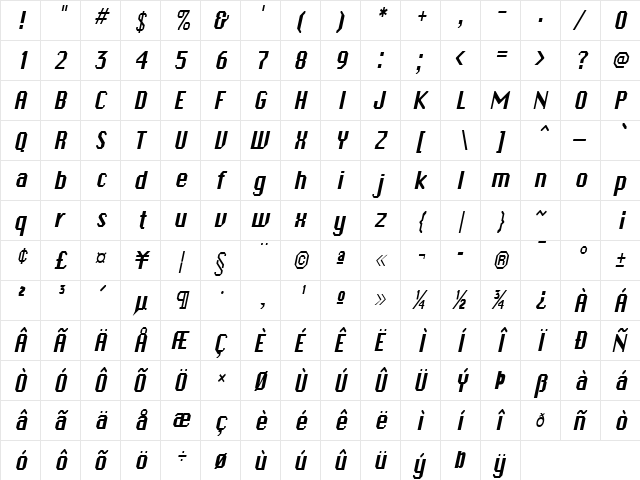
Ambush-Condensed Italic Font Preview
Design Context for Ambush-Condensed Typeface
Ambush-Condensed takes a measured approach to typography — its balanced proportions and neutral character make it a reliable workhorse for both digital and print work. The dynamic lean of this cut emphasises speed and emphasis in any layout. Its narrow stance lets it pack a punch even in space-constrained designs.